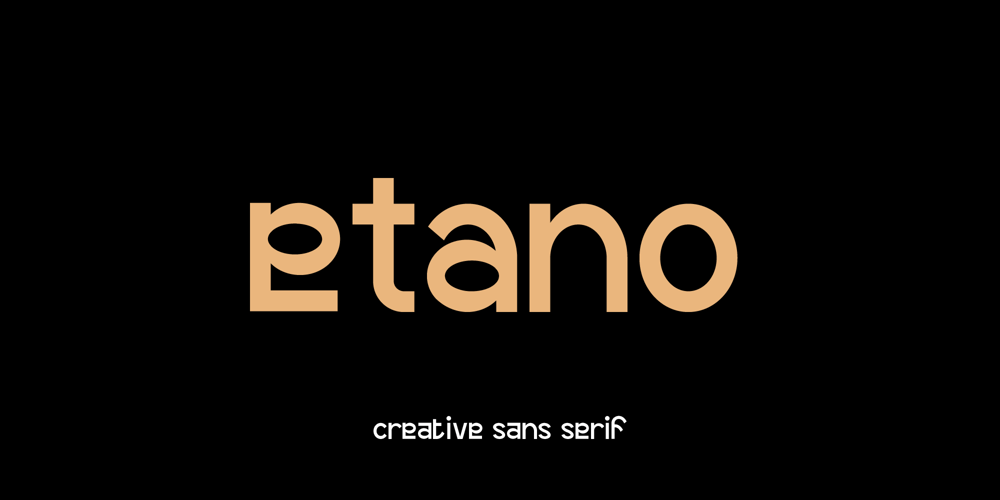
Etano Font Family was designed by Iwan Alwan and published by Artiveko. Etano contains 2 styles and family package options. Etano, the epitome of typographic innovation crafted by the ingenious Iwan Alwan.This creative sans-serif font dances between the realms of uniqueness and versatility, boasting an exquisite array of uppercase and lowercase variations that seamlessly intertwine. With a stroke of ingenuity, Etano transcends linguistic barriers with its comprehensive multilingual support, ensuring every word finds its voice in any tongue. Delving deeper, its elegant ligatures weave letters together in a mesmerizing dance, while alternates offer a delightful palette of expression. Etano isn’t merely a typeface; it’s a symphony of design, a testament to the artistry of its creator, and a gateway to boundless creativity.